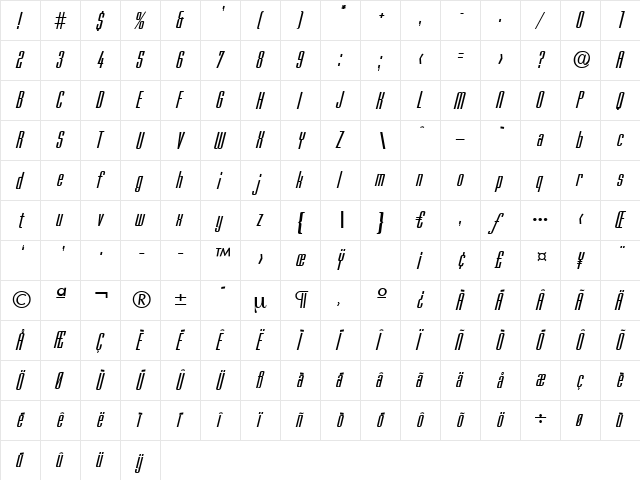
OrlandoItalics Regular
Design Context for OrlandoItalics Typeface
OrlandoItalics offers clean, dependable letterforms without strong stylistic allegiance, making it a practical choice for designers who need flexibility. Its italic angle brings a sense of urgency and motion to the letterforms.
Pro Tip: Try OrlandoItalics for annotation and caption copy alongside an upright companion — the contrast in angle creates a dynamic but ordered typographic system.